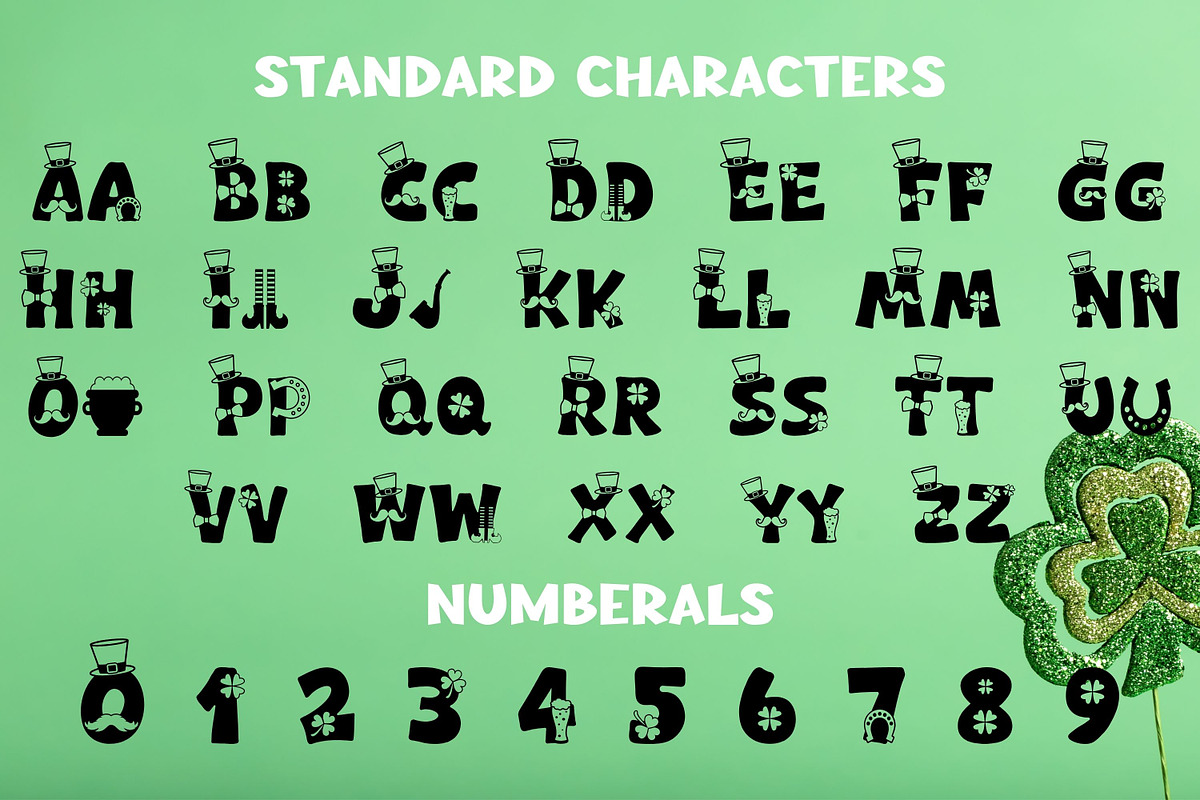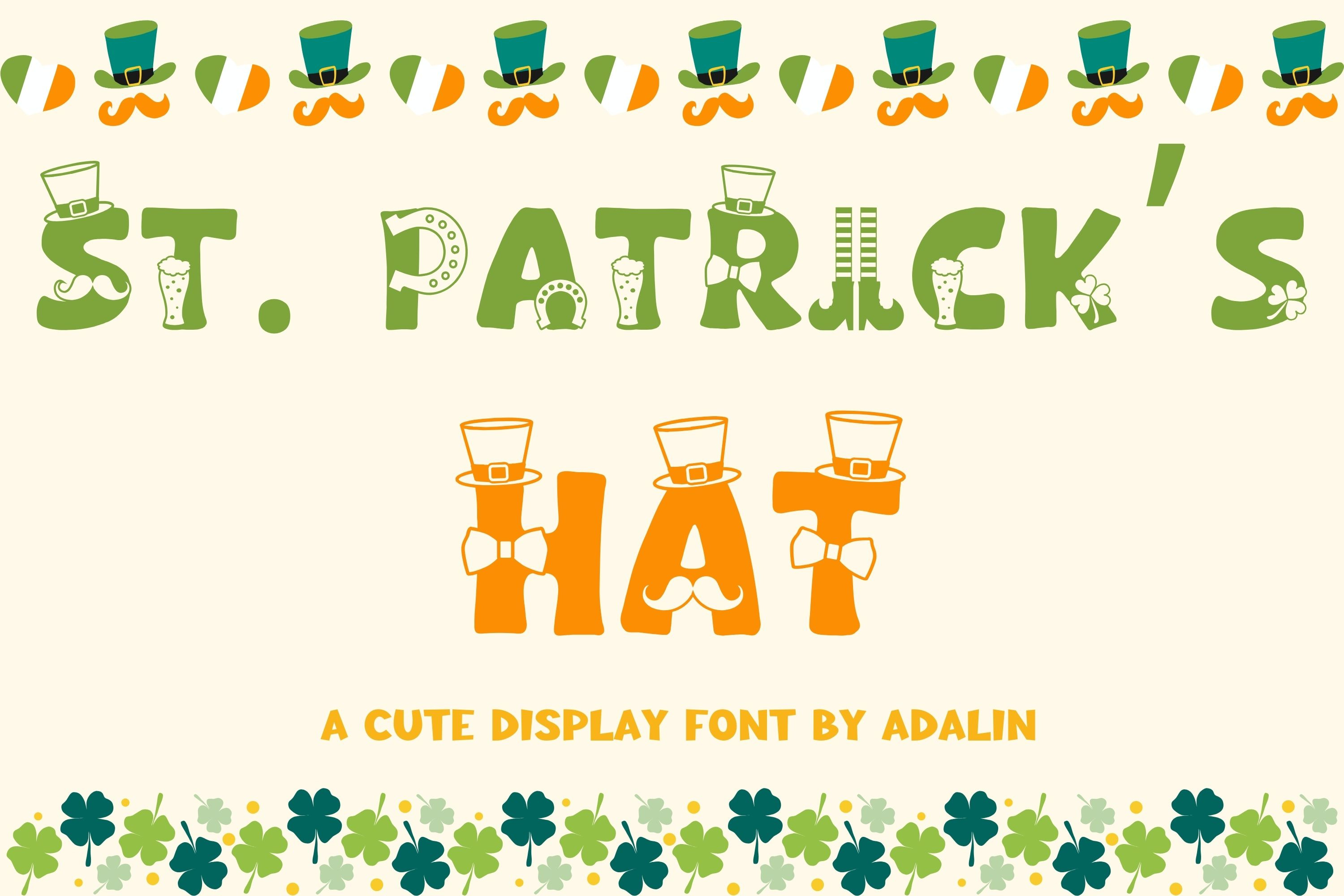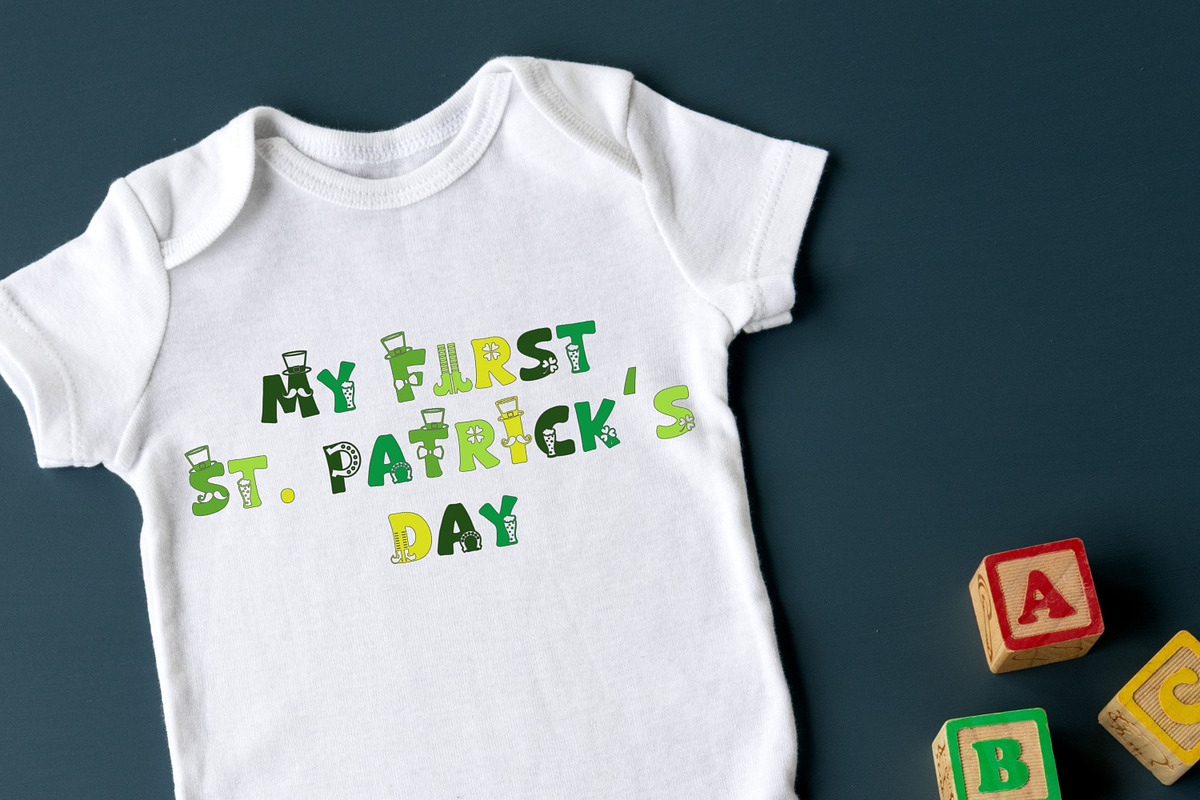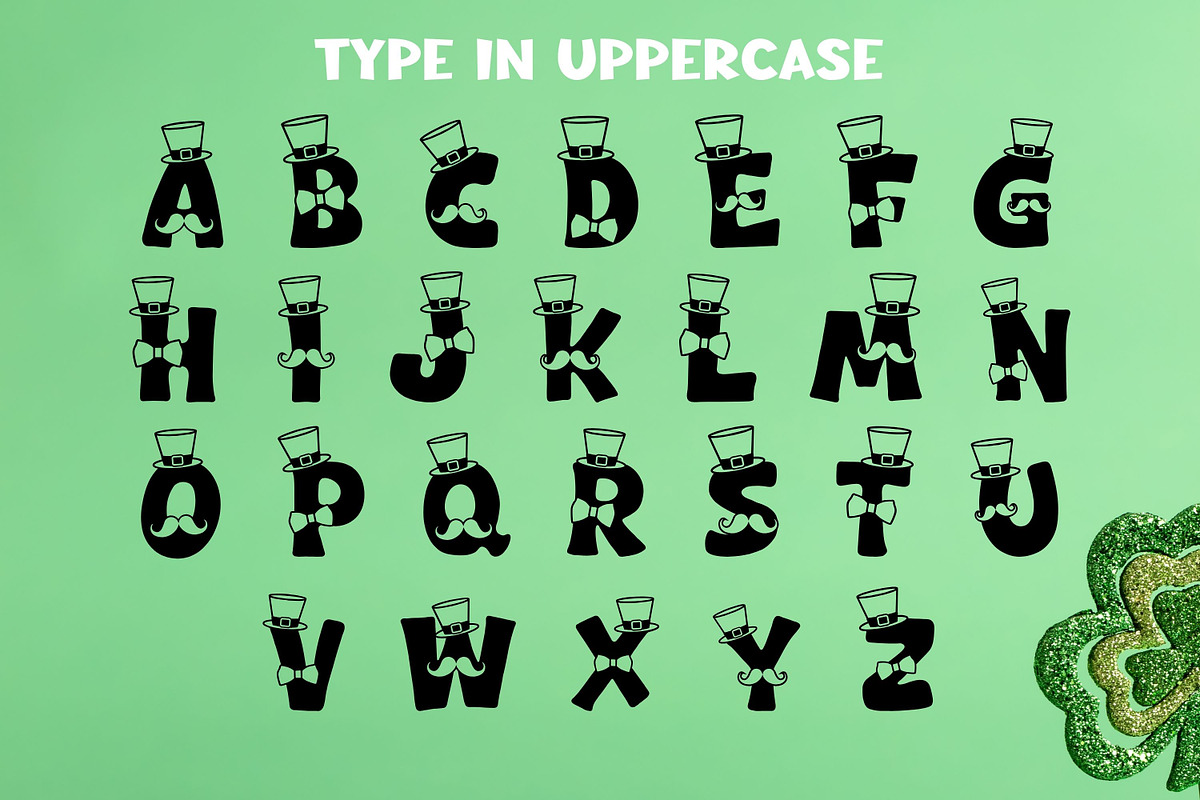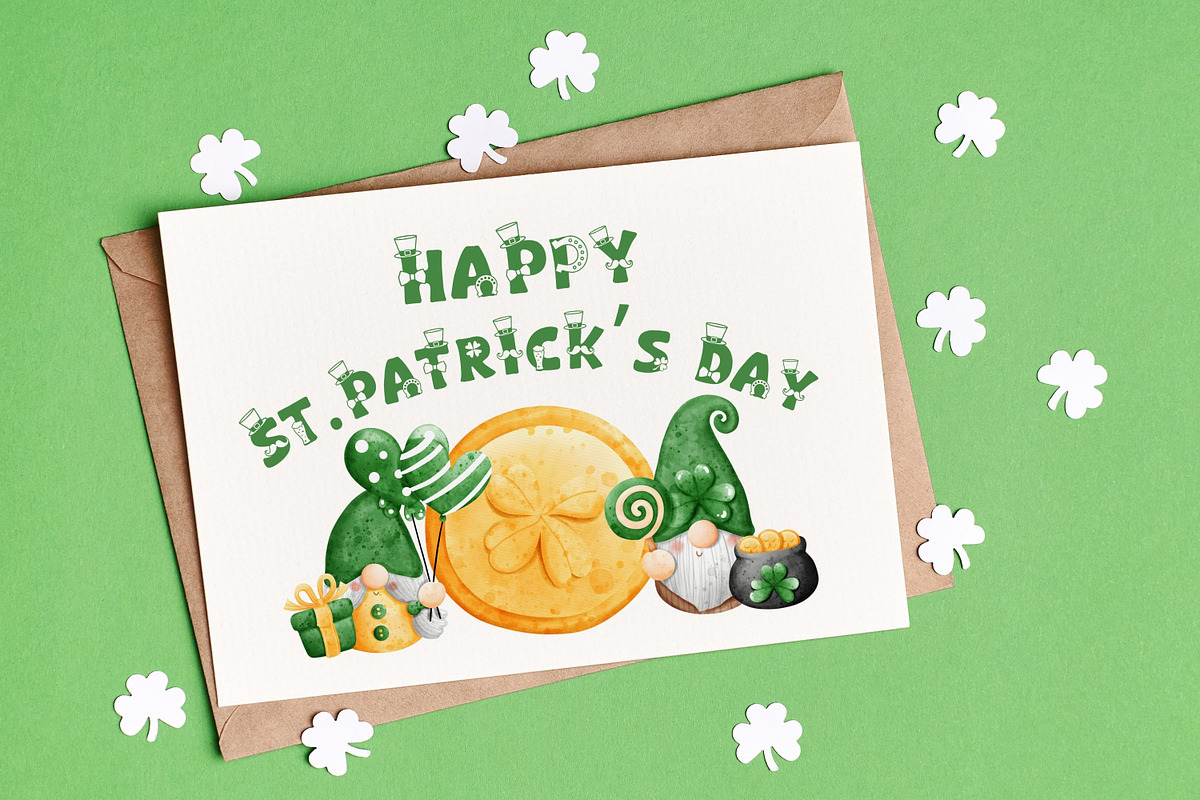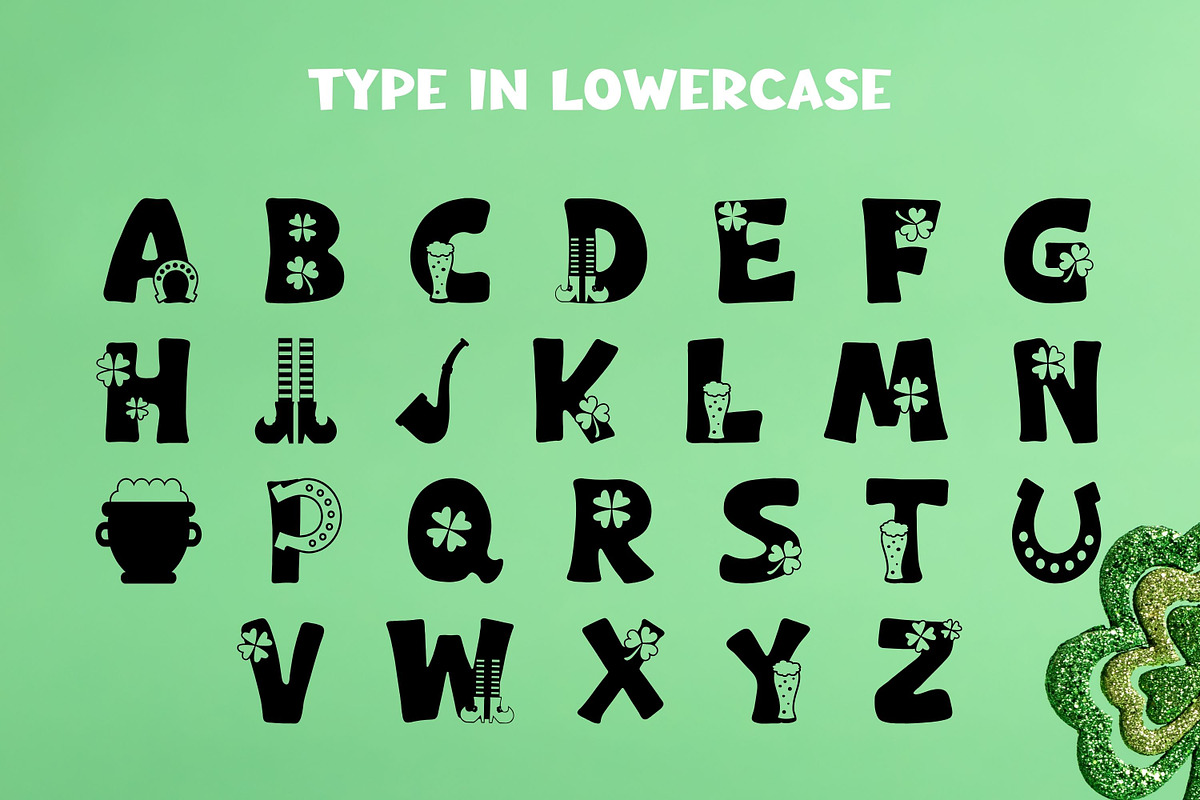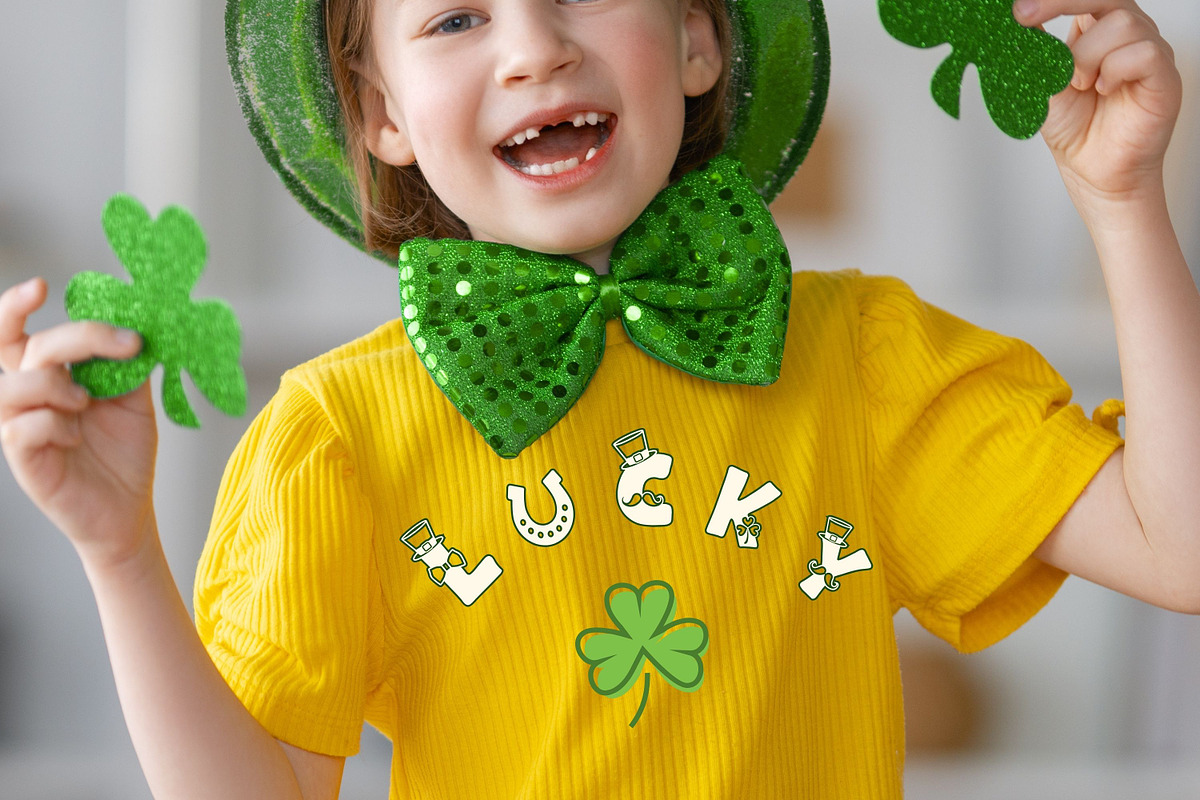
St. Patrick's Hat - Display Font
Introducing St.Patrick’s Hat – an enchanting decorative font that perfectly blends fun and style. With its delightful and cheerful appeal, St.Patrick’s Hat elevates each of your designs, making them pop with personality and charm. Bound only by your imagination, this vibrant and bold typeface breathes new life into every creative concept, transforming it from ordinary to extraordinary with ease. Let St.Patrick’s Hat font be the magic touch that awakens your bright ideas and brings your visions to life.